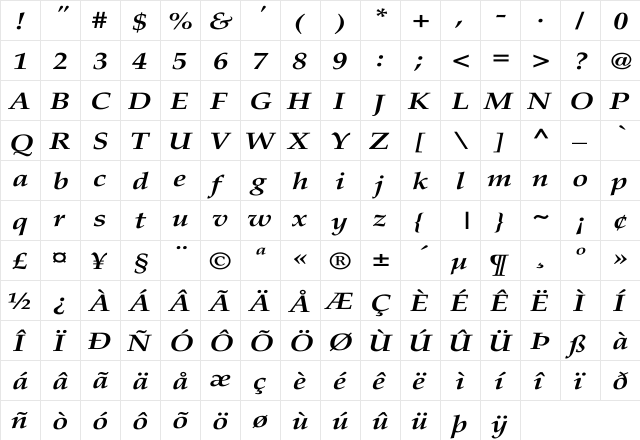
Palatino-BoldItalic Wd Regular
Design Context for Palatino-BoldItalic Wd Typeface
Palatino-BoldItalic Wd offers clean, dependable letterforms without strong stylistic allegiance, making it a practical choice for designers who need flexibility. The dynamic lean of this cut emphasises speed and emphasis in any layout. The heavy weight commands attention and anchors typographic hierarchies.